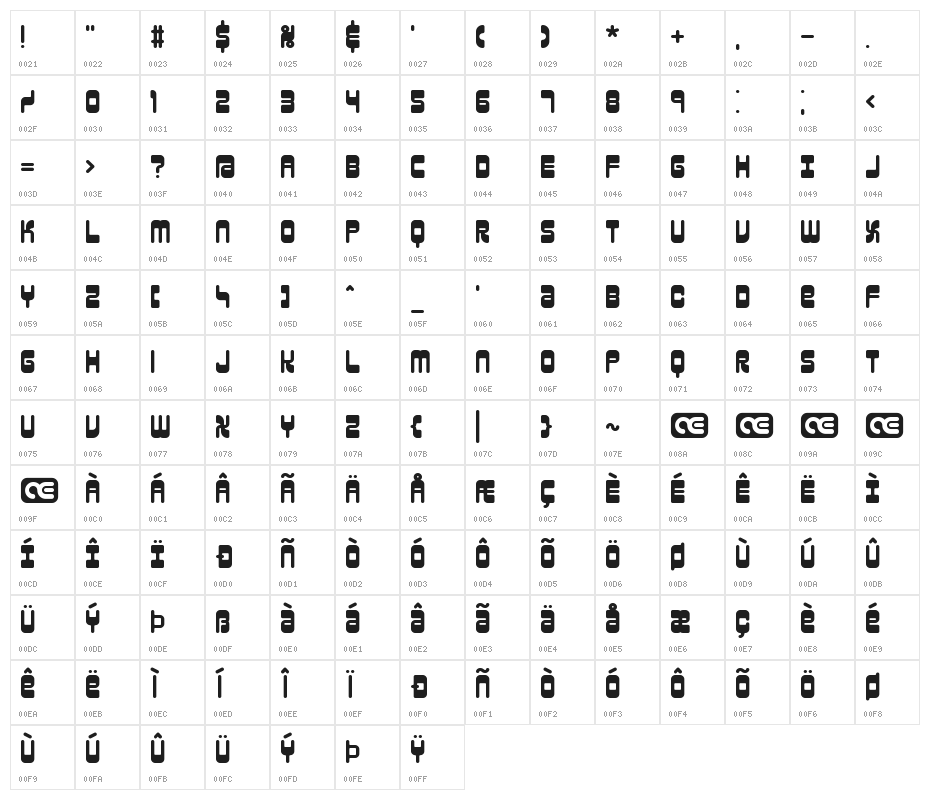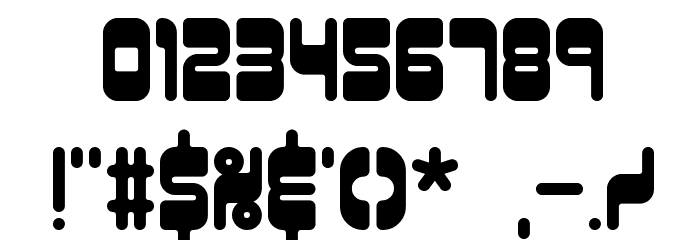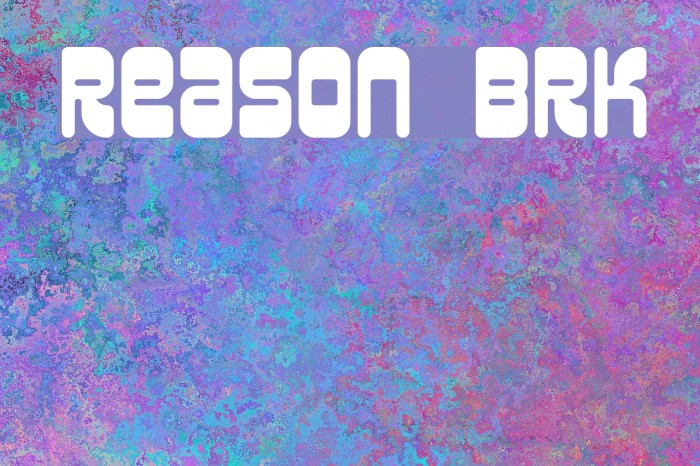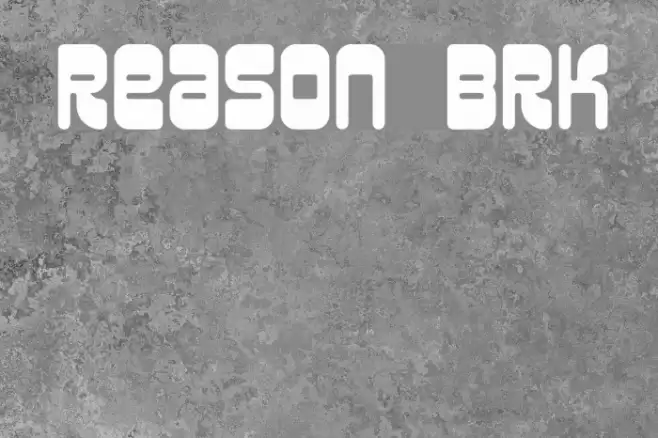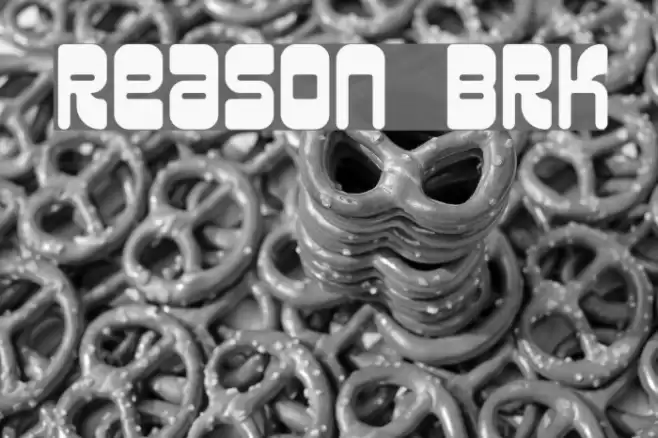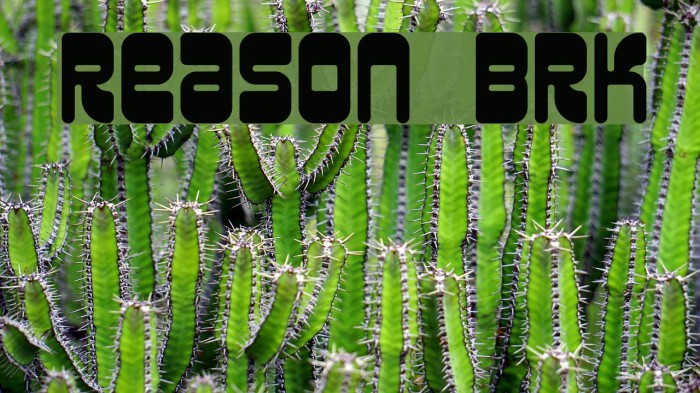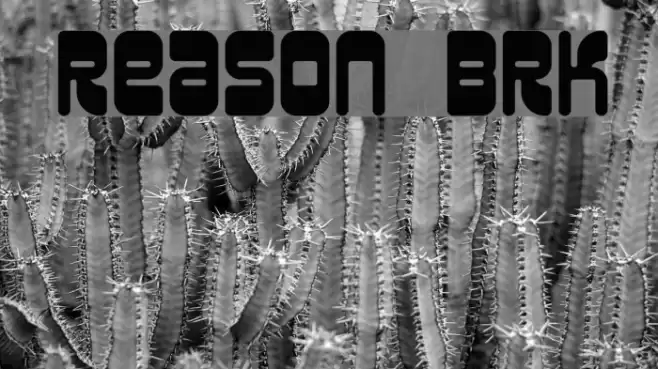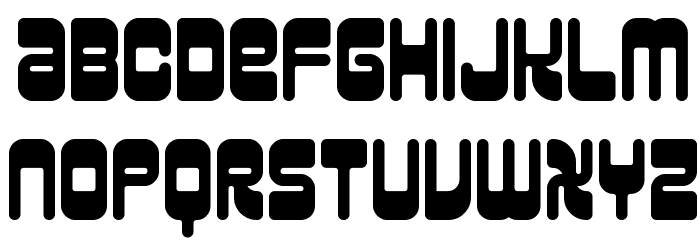
Reason BRK Font
Reason BRK Description
This font features a bold, geometric style with rounded edges and a blocky appearance. The characters are uniformly thick, creating a strong visual impact. The uppercase and lowercase letters maintain a consistent height, contributing to a cohesive look. The numbers and special characters follow the same design principles, ensuring uniformity across all elements. The font's unique style is characterized by its futuristic and playful aesthetic, making it suitable for creative and modern projects. Its boldness and distinctiveness make it stand out, while the rounded edges soften its overall appearance.
| Proposed Projects | Ideal for branding, posters, video game graphics, and modern digital designs. |